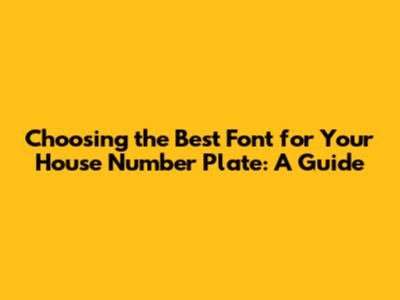
Hey guys! Let's talk about something super important, yet often overlooked: the font on your house number plate. Seriously, it's not just about slapping some numbers up; the font you choose can drastically impact how easy it is to read, the overall aesthetic of your home, and even how quickly emergency services can find you. Choosing the best font for house number plate might seem like a small detail, but it can make a big difference. I mean, think about it: your house number is the first thing people see. It’s the visual handshake your home offers to the world. A well-chosen font speaks volumes about your style, attention to detail, and frankly, your ability to be found when it matters most. So, let’s dive into what makes a font choice truly excellent. We'll cover everything from readability to aesthetics, and I promise, by the end of this, you’ll be armed with the knowledge to make the perfect selection.
The Importance of Readability
Alright, first things first: readability. This is the absolute cornerstone of a great house number plate font. What good is a fancy, beautiful font if no one can actually read your house number? Especially in low-light conditions, at a distance, or when someone is in a hurry (like, you know, an ambulance trying to find your place!), clarity is king. So, how do you ensure your font is readable? Well, several factors come into play. Firstly, consider the font style. Some fonts, like highly stylized scripts or overly ornate designs, can be difficult to decipher, especially if the numbers are small or the plate is viewed from a distance. Think of it this way: the more intricate the font, the more room there is for confusion. Secondly, font size is critical. You want your numbers to be large enough to be easily seen, without overwhelming the plate itself or looking out of place on your home. The size you choose will depend on the size of your plate and the distance from which it needs to be visible. Generally speaking, a larger font size is always better for readability. Lastly, the contrast between your numbers and the background of your plate is a massive deal. High contrast ensures your numbers pop out and are easy to read. Black numbers on a white or light-colored background, or white numbers on a dark background, are usually your safest bets. You want the numbers to “pop” and stand out, no matter the lighting conditions. Keep these things in mind, and you'll be well on your way to selecting a font that's both stylish and supremely practical.
Font Styles and Their Characteristics
Now, let's get into some specific font styles and their characteristics. This is where things get fun! There are tons of fonts out there, but we can group them into a few major categories. Serif fonts, such as Times New Roman or Garamond, are characterized by small decorative strokes (serifs) at the end of each letter. They often convey a sense of tradition and elegance. While some serif fonts can work well, be cautious; overly ornate serif fonts might hinder readability, especially from a distance. Sans-serif fonts, like Arial or Helvetica, lack these serifs, resulting in a cleaner, more modern look. They're typically very readable, even at smaller sizes, making them a popular choice for house number plates. The simplicity of sans-serif fonts makes them an excellent choice for easy viewing. Script fonts, which mimic handwriting, add a touch of personality and flair. However, as we discussed, they can be tricky for readability, so use them with caution. If you’re set on a script font, make sure it’s a simple, clear style and that the numbers are large enough. Display fonts are bold and eye-catching and designed for use at larger sizes. While visually striking, they might not always be the best choice for a house number, as readability can be an issue. However, some display fonts can work well if the numbers are large and the design is simple. The best font for house number plate really depends on your personal style and the overall look of your home. It’s a fun process to experiment with these options to see which best fits what you're trying to achieve.
Considering Your Home's Aesthetic
Beyond pure readability, you'll also want to consider your home's aesthetic. Your house number plate should complement, not clash with, the overall style of your house. If you have a classic, traditional home, a serif font might be the perfect choice. It'll fit right in with the established style. A font like Times New Roman, or a similar classic font, could look great and add to the home's charm. For a more modern home, a clean sans-serif font will likely be a better fit. Its sleek, minimalist design will complement the clean lines and contemporary feel of your house. Consider fonts like Arial or Helvetica, which offer a great balance of clarity and style. If your home has a more rustic or farmhouse vibe, a slightly distressed or hand-lettered font could work beautifully. Just ensure it remains readable. The style should integrate with the exterior of your home. Think of the materials, colors, and overall design of your house. Does it have a lot of straight lines or curves? Is it bold and modern, or classic and subdued? Use these details as inspiration when choosing your font. Another great tip is to look around your neighborhood. See what others have done, and get inspiration from their choices. However, don’t be afraid to be unique! Your house number plate is a small detail, but it can be a significant one in conveying the personality of your home. Your home's style will play a huge role in your best font for house number plate selection.
Materials, Colors, and Placement
Let’s get into a few more practical considerations. The best font for house number plate is more than just the font itself; the materials, colors, and placement of your plate also play a crucial role. Material choice greatly impacts both the look and durability of your house number plate. Metal plates, like stainless steel or brass, are classic and offer a sleek, professional look. They’re also highly durable and can withstand the elements. Acrylic plates are a versatile option, available in various colors and finishes. They’re lightweight and easy to customize. Wood plates offer a rustic, natural aesthetic, perfect for homes with a more traditional or farmhouse vibe. Make sure to choose a weather-resistant wood. Stone plates, such as granite or slate, offer a sophisticated, high-end look. They’re extremely durable but can be more expensive. Color contrast is absolutely key for readability, as we discussed earlier. Opt for a high-contrast combination. Dark numbers on a light background (or vice versa) are generally the easiest to read. Placement matters too. Your house number plate should be easily visible from the street, regardless of the time of day or weather conditions. Consider where the plate will be located. Will it be on your front door, your mailbox, or a post near your driveway? Ensure it’s positioned where it’s unobstructed and easy for anyone to spot. If your house is set back from the road or obscured by trees, consider a larger plate or an illuminated option. Good placement ensures anyone can quickly find your house, whether they're visitors, delivery drivers, or emergency responders. Think about the overall visibility and accessibility of your plate.
Choosing Your Font: Step-by-Step
Okay, so now that we've covered the essentials, let's walk through a step-by-step process for choosing the perfect font: Step 1: Assess Your Home's Style. Take a good look at your house. What style is it? Modern? Traditional? Rustic? This will guide your font choices. Step 2: Prioritize Readability. Always make readability your top priority. Choose fonts that are clear and easy to read, even from a distance. Step 3: Consider Font Styles. Research and experiment with serif, sans-serif, script, and display fonts. See what looks best. Step 4: Think About Materials and Colors. Select durable materials and colors that offer good contrast and complement your home's aesthetic. Step 5: Test and Review. Before you commit, create a mock-up or visual representation of your plate. Print out the numbers in your chosen font and size and place them in the location where your plate will be. This will help you visualize the final product. Step 6: Make Your Choice! Once you've considered all the factors, select the font that best suits your needs and style. You're now ready to create your house number plate. Keep in mind that a great font choice will significantly improve the overall appearance of your home and improve its curb appeal. This step-by-step process will help you find the best font for house number plate.
Additional Tips and Considerations
Here are some extra tips and considerations to keep in mind: Illumination: If you live in an area with poor lighting, or you want to enhance visibility at night, consider an illuminated house number plate. These plates have built-in lights that make the numbers easier to see. Font Size and Spacing: Ensure the numbers are large enough and that there is sufficient spacing between them. This will further enhance readability. Customization: Don’t be afraid to get creative! Many companies offer custom house number plates, allowing you to choose fonts, colors, and materials that perfectly match your home's style. Durability: Choose materials that are weather-resistant and designed to withstand the elements, especially if you live in an area with harsh weather conditions. Professional Help: If you’re unsure, consult a professional designer or sign maker. They can provide valuable advice and help you create a custom house number plate that meets your specific needs. Online Resources: Utilize online font websites and design tools to experiment with different fonts and see how they look before making a final decision. Local Regulations: Be aware of any local regulations or ordinances regarding house number plates. Some areas may have specific requirements for size, placement, or materials. Considering these extra tips will help you further enhance the best font for house number plate you choose.
Final Thoughts
So there you have it, guys! Choosing the best font for house number plate is a fun project with many benefits. It enhances your home's appearance, improves visibility, and makes it easier for people to find you. By considering readability, your home's aesthetic, materials, and placement, you can select a font that perfectly reflects your style and meets your needs. I hope this guide has given you a solid understanding of the process. Remember to prioritize clarity, choose a font that complements your home, and don’t be afraid to experiment. Happy choosing, and enjoy the process of making your house even more beautiful and welcoming. Have fun creating your perfect house number plate and improving your home's curb appeal.